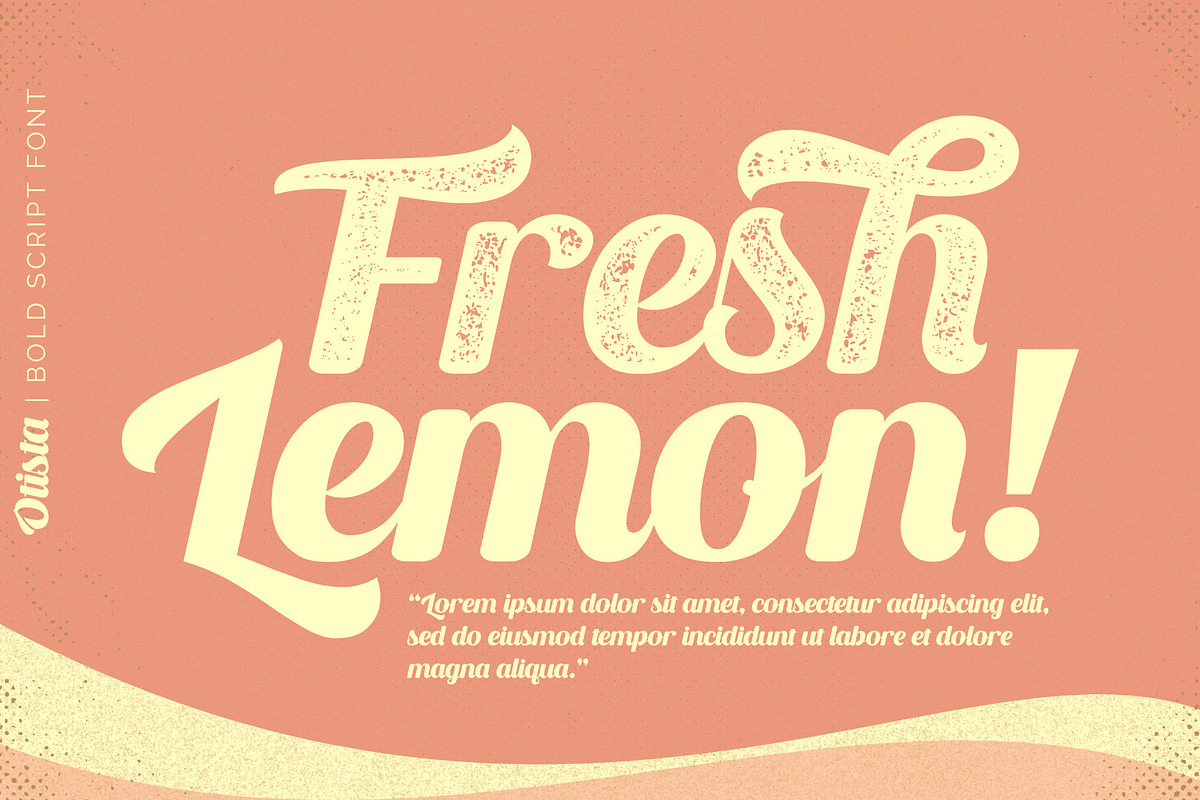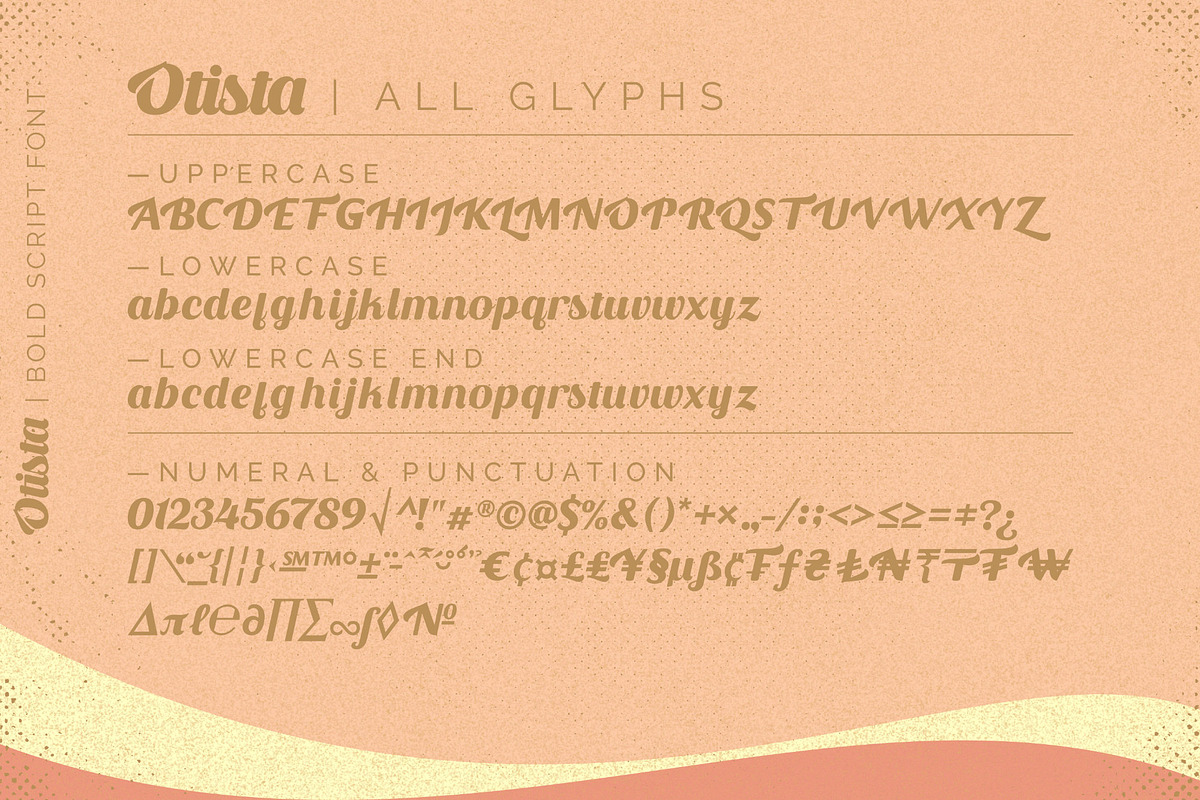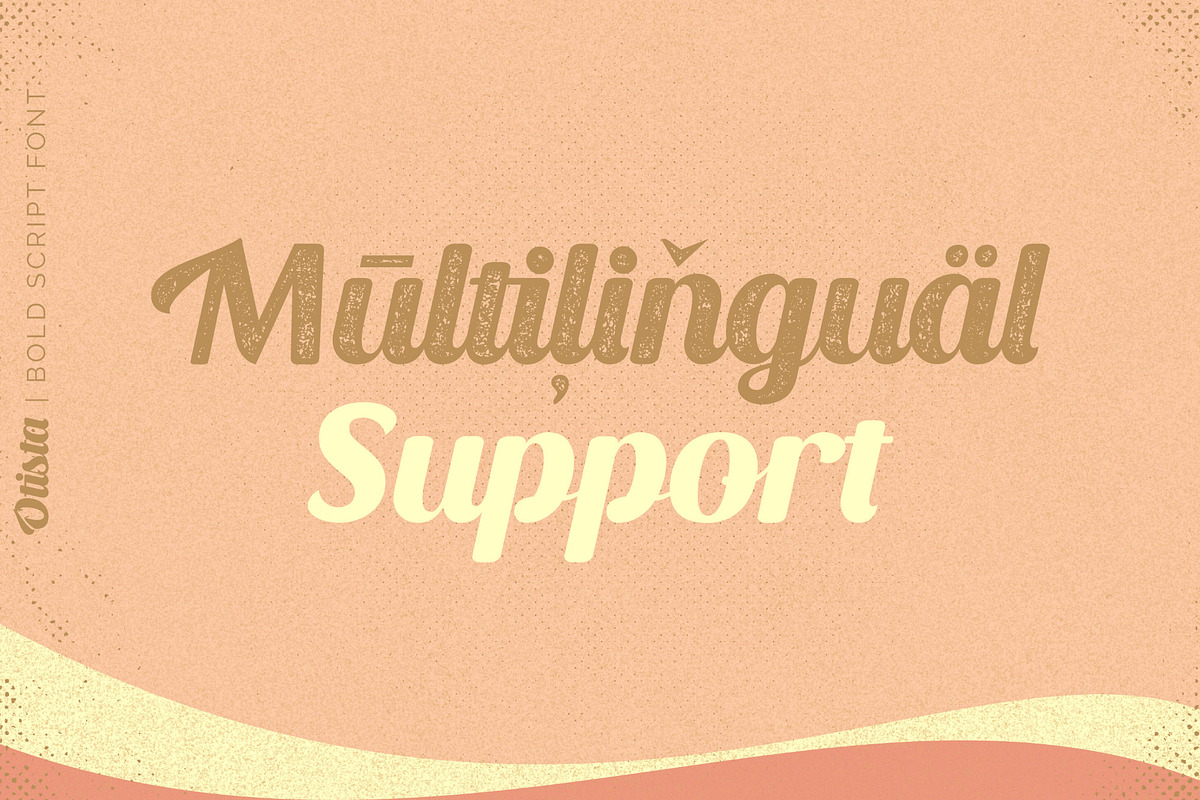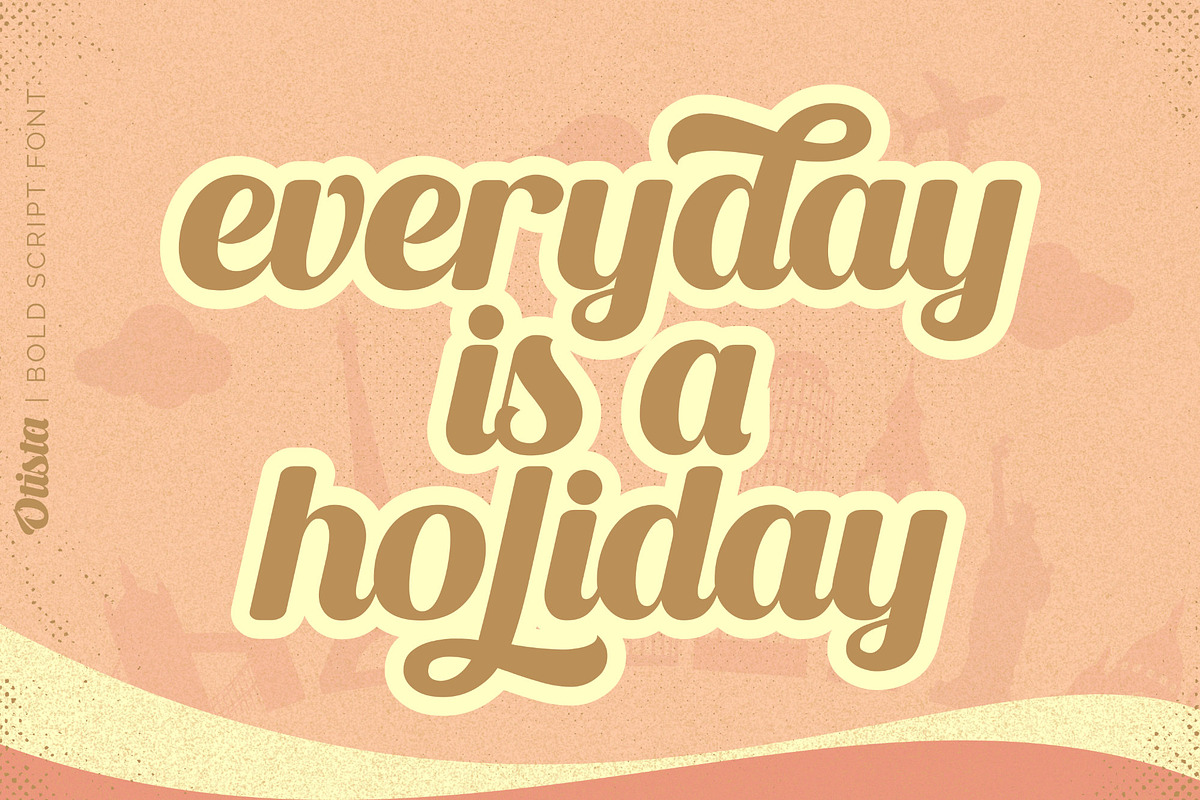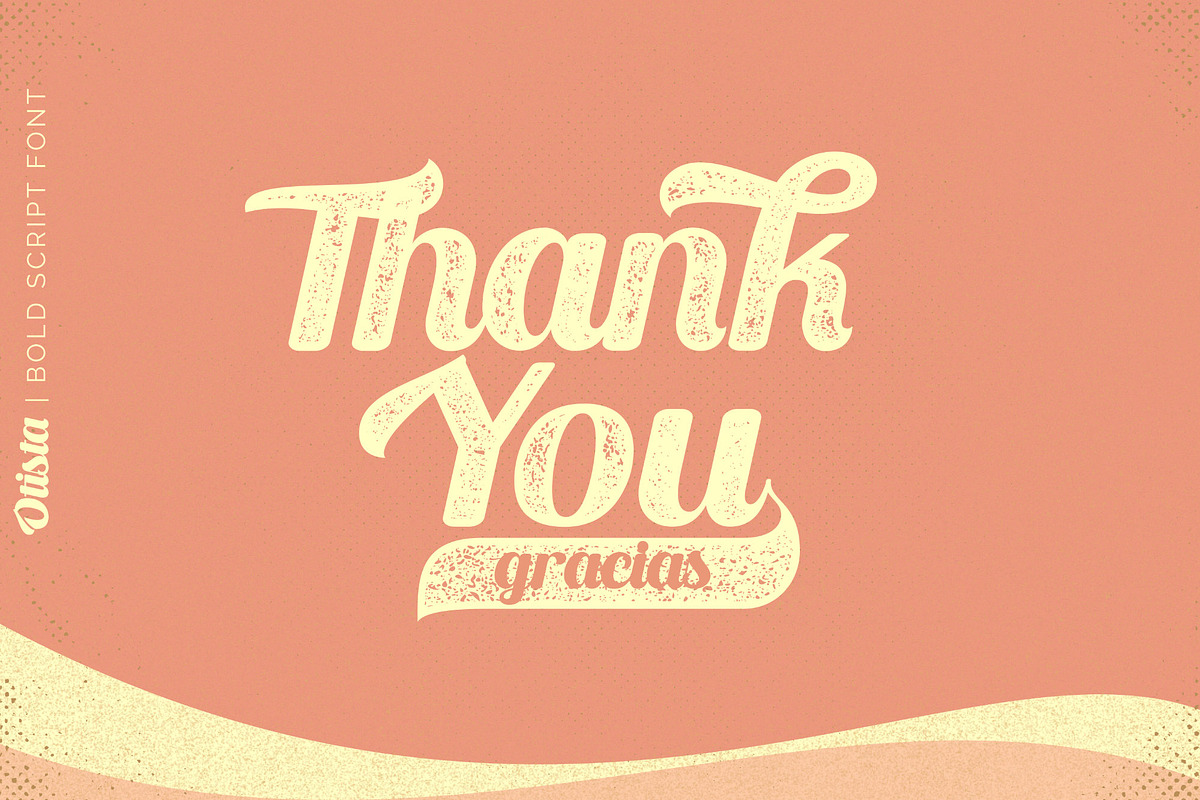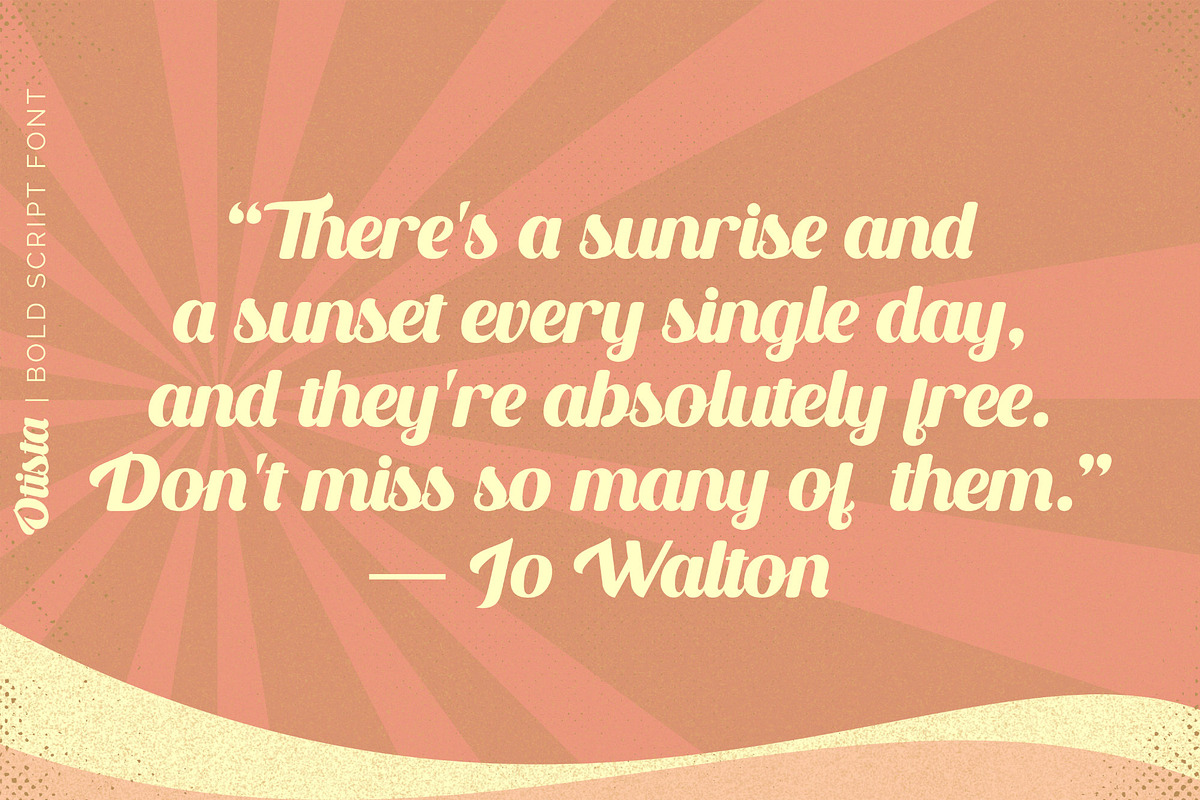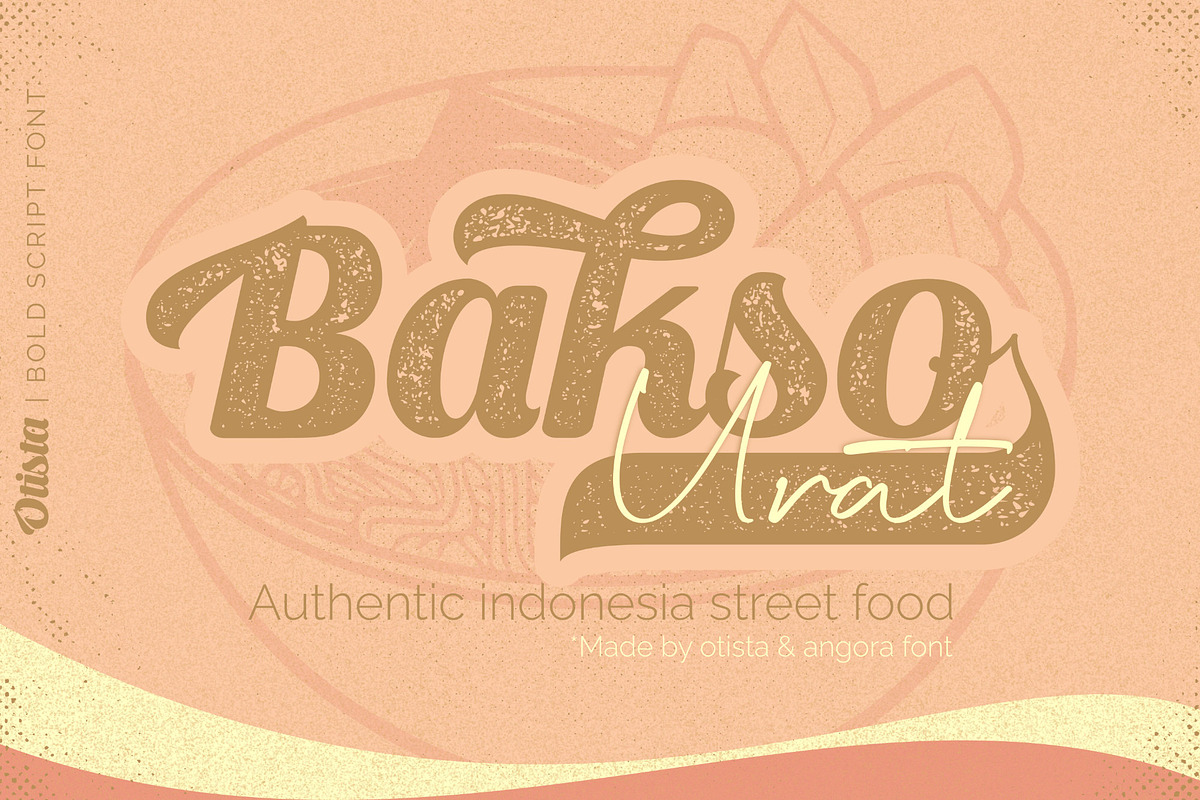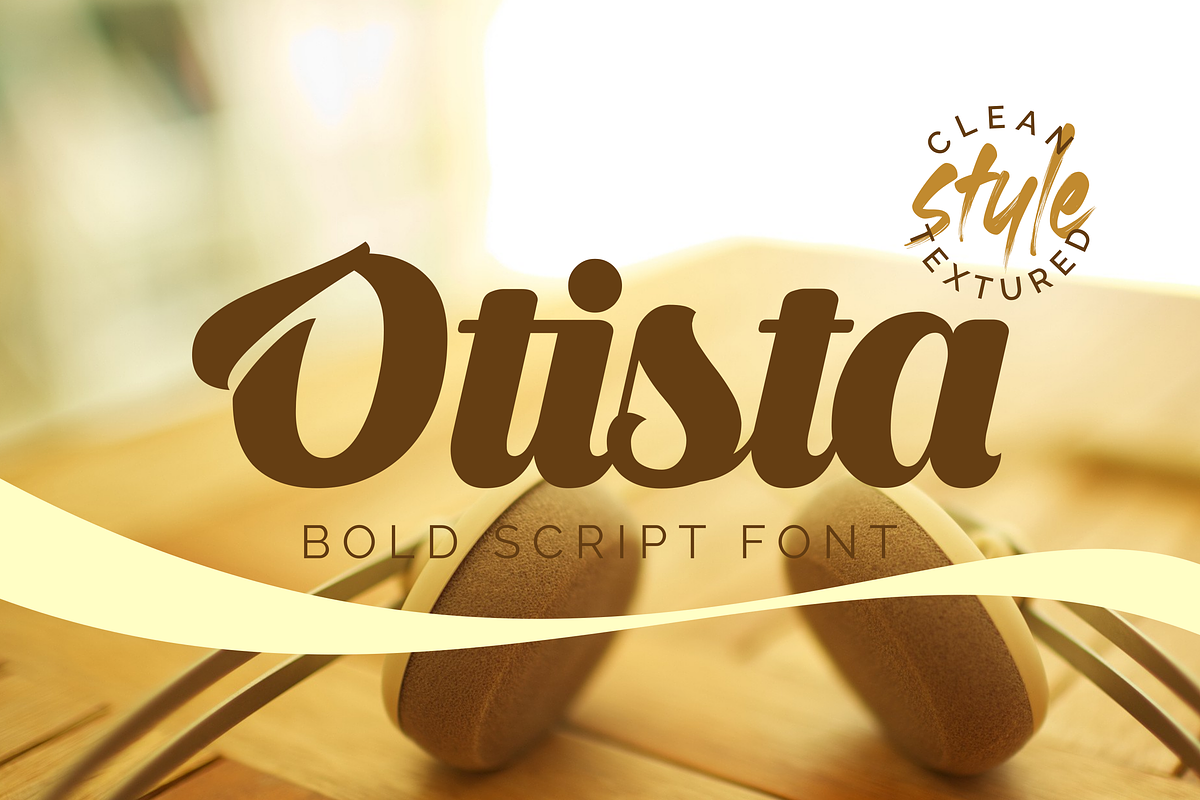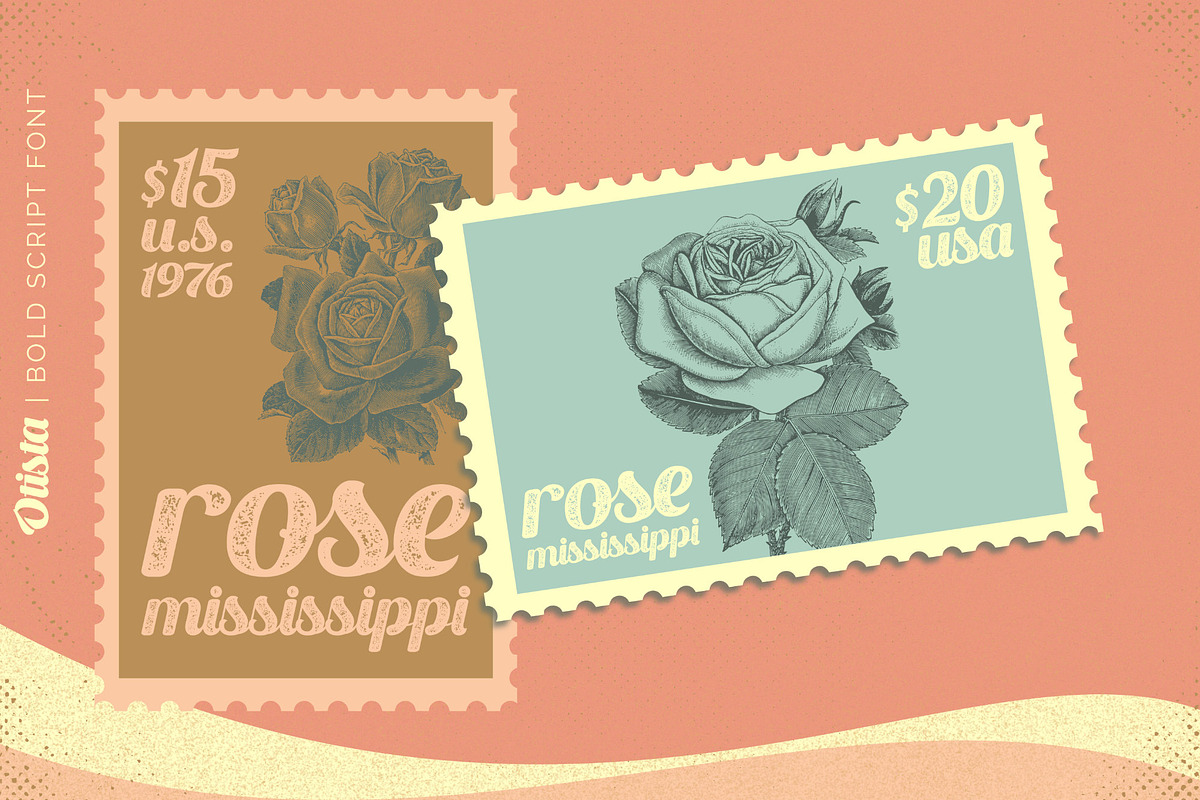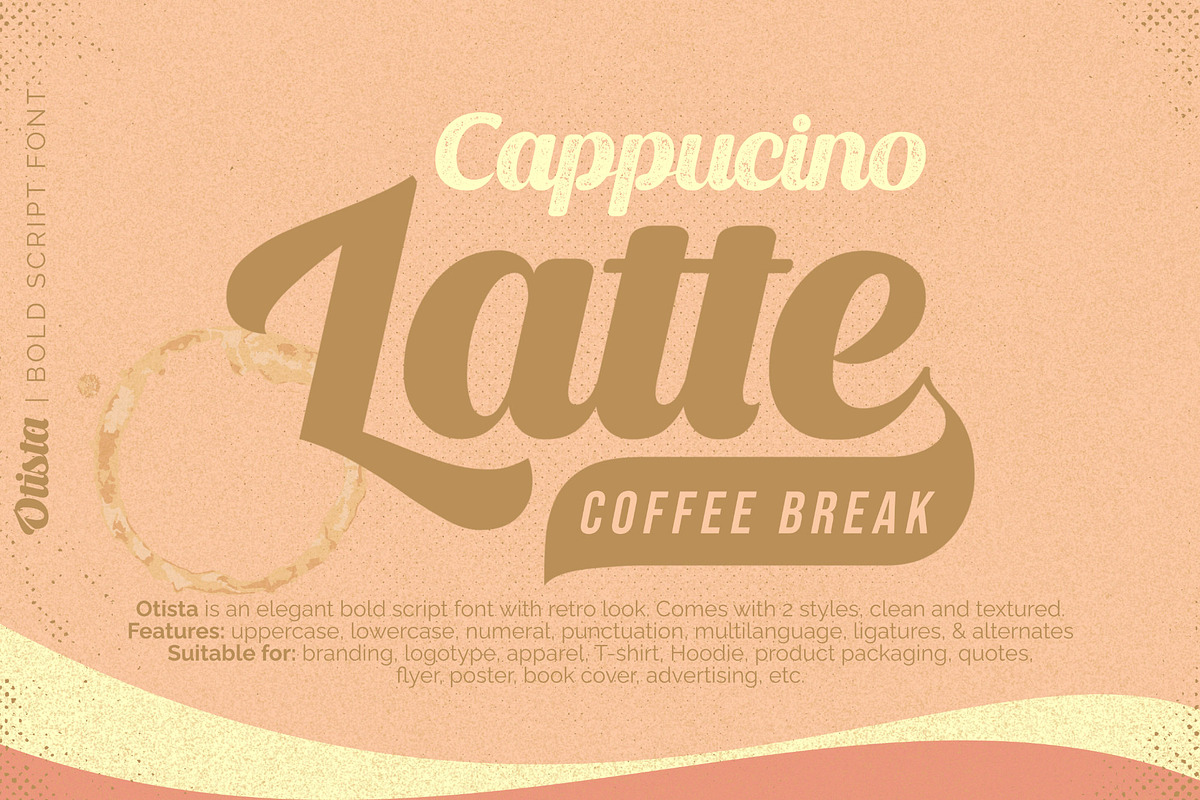
Otista
Otista is an elegant bold script font with retro look. Comes with 2 styles, clean and textured. Great for logotype, branding, packaging design, poster design, website/display, editorial, headline, advertising, and more.
- Features: Uppercase, lowercase, numerals, punctuations, alternates, ligatures, and swashes.